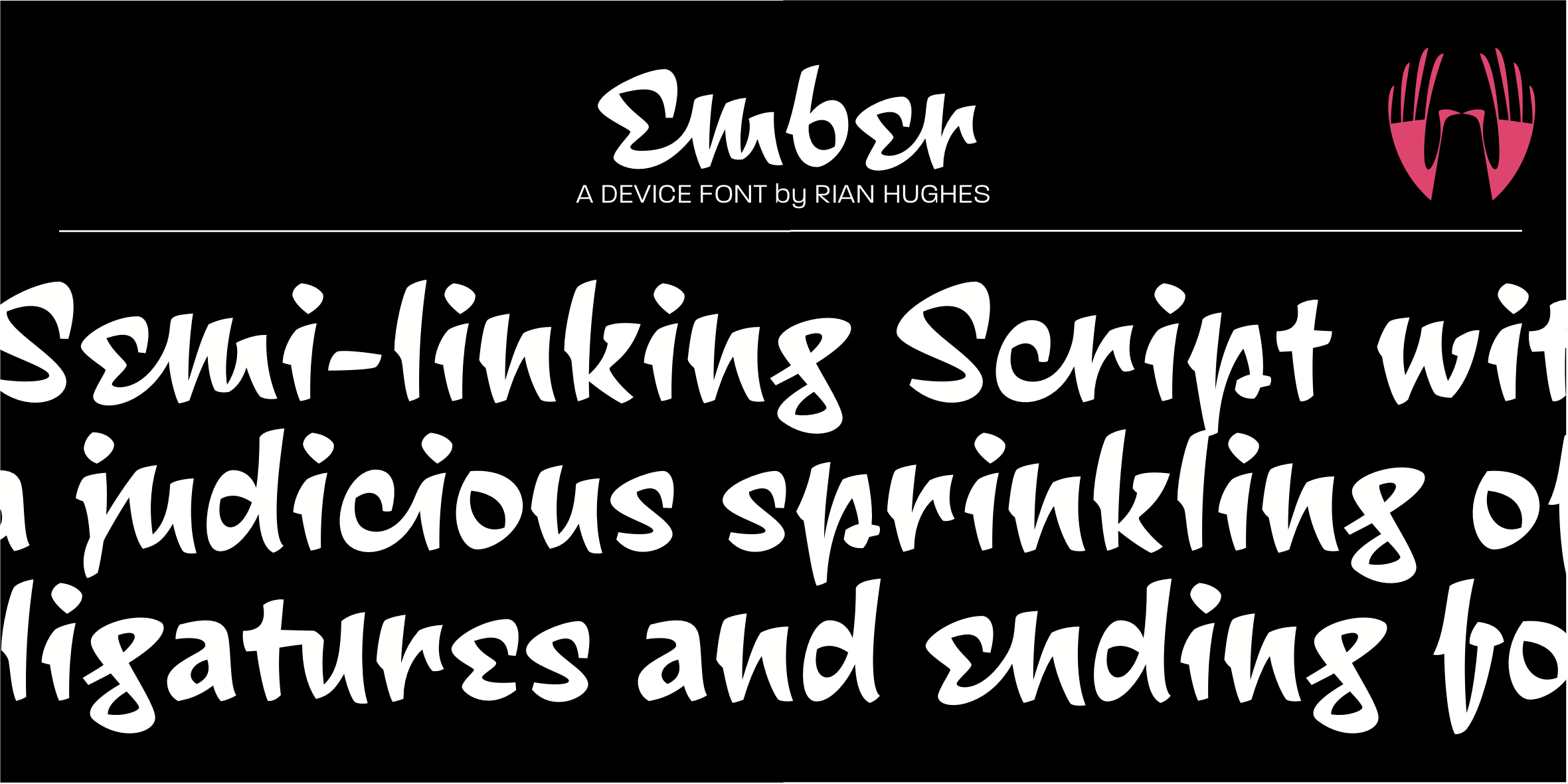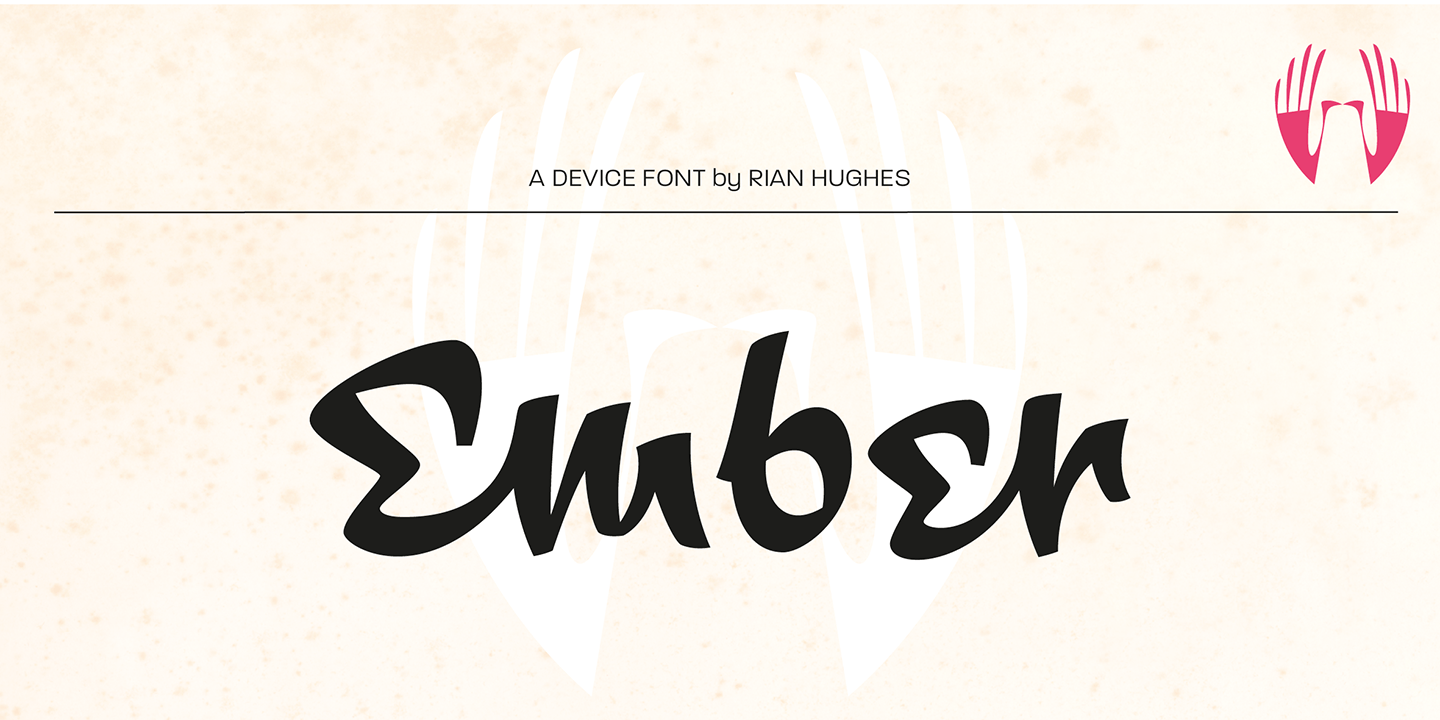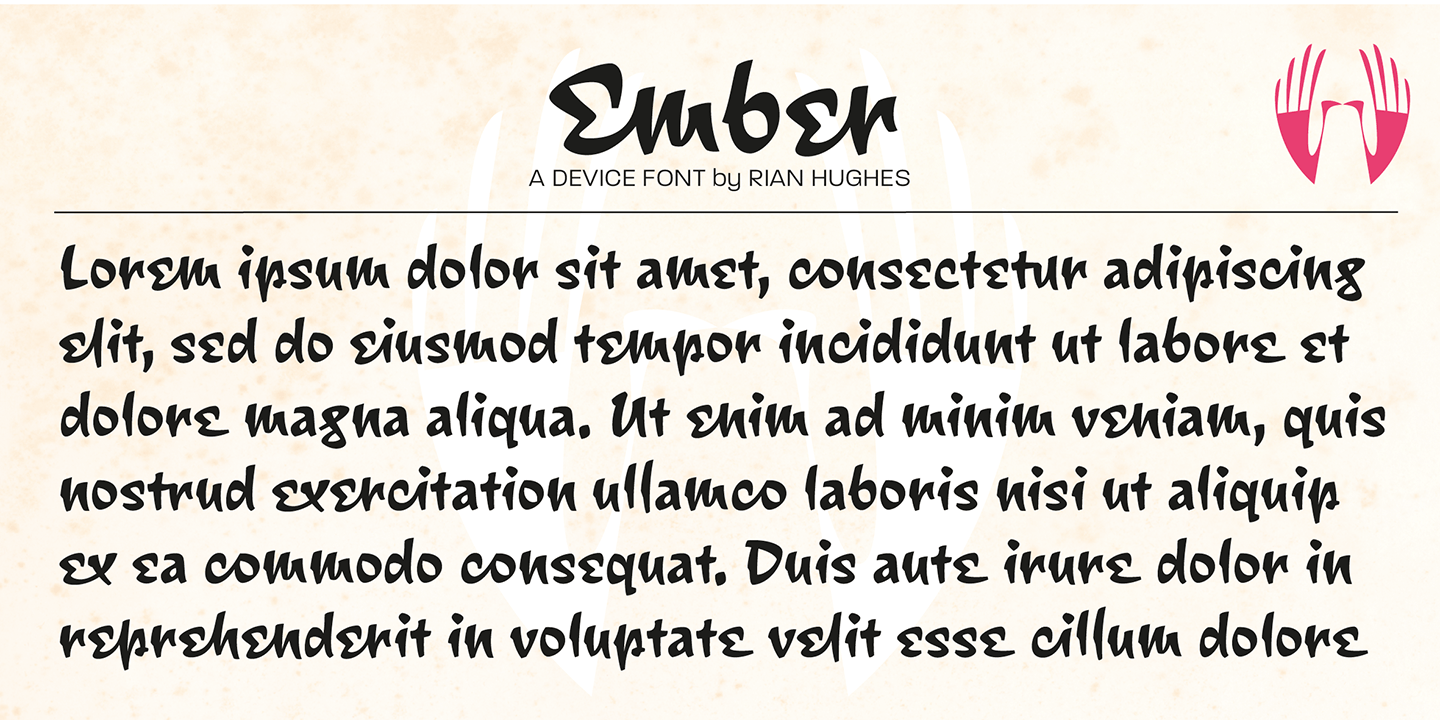
Ember
Font Family by Device Fonts
Ember is an informal script with a judicious sprinkling of ligatures that give it a flowing freehand liveliness. Neither overly formal and stuffy nor cheap and cheerful, Ember is elegant yet friendly, sophisticated yet approachable, fun and frivolous but stylish and well bred. Ligatures are set to be on automatically, and the stylistic alternates and optional final forms for some of the characters can be toggled on and off using the OpenType panel in design applications with advanced OpenType support.
Designer Rian Hughes says that he felt he was ?possibly channeling the spirit of Roger Excoffon?. Neither pastiche nor revival, Ember does seem to evoke the famous French designer's trademark elegance.